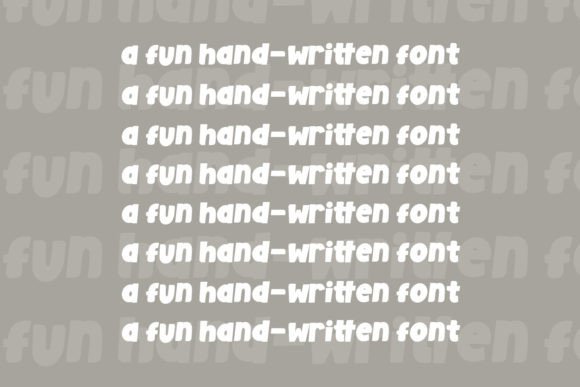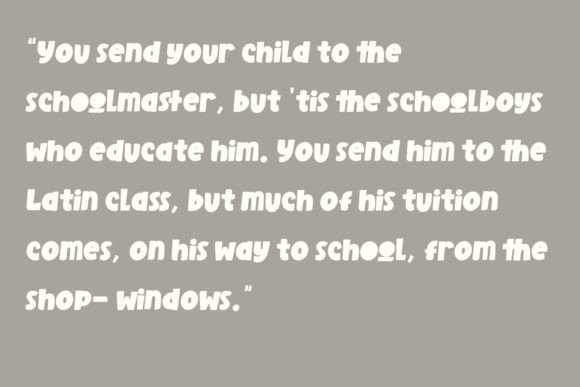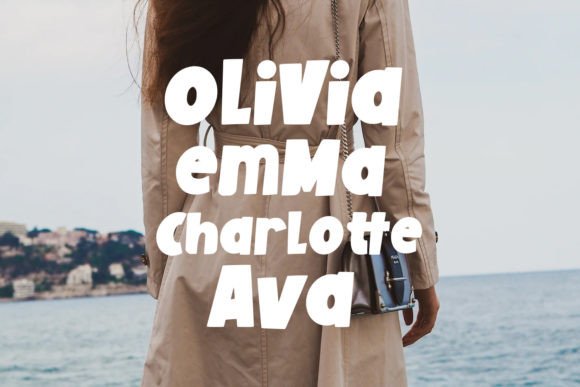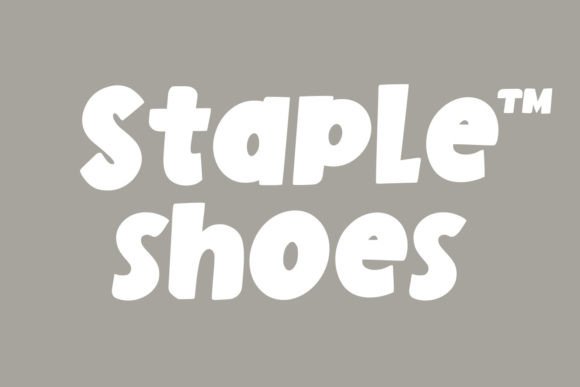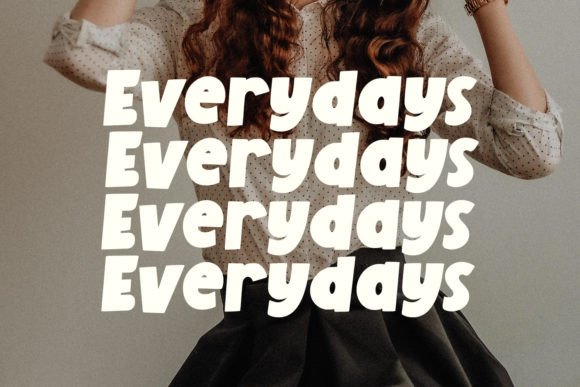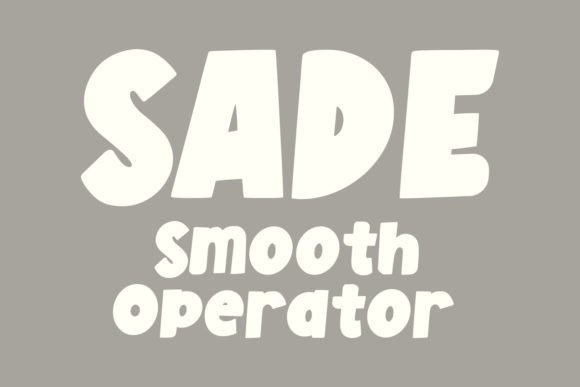
Introduction to Jeklin Font
Jeklin is a cute and incredibly friendly handwritten display font.
With its fresh and bright personality, this typeface will enhance a wide range of creative ideas .
Key Features of Jeklin Font
Why Choose Jeklin Font?